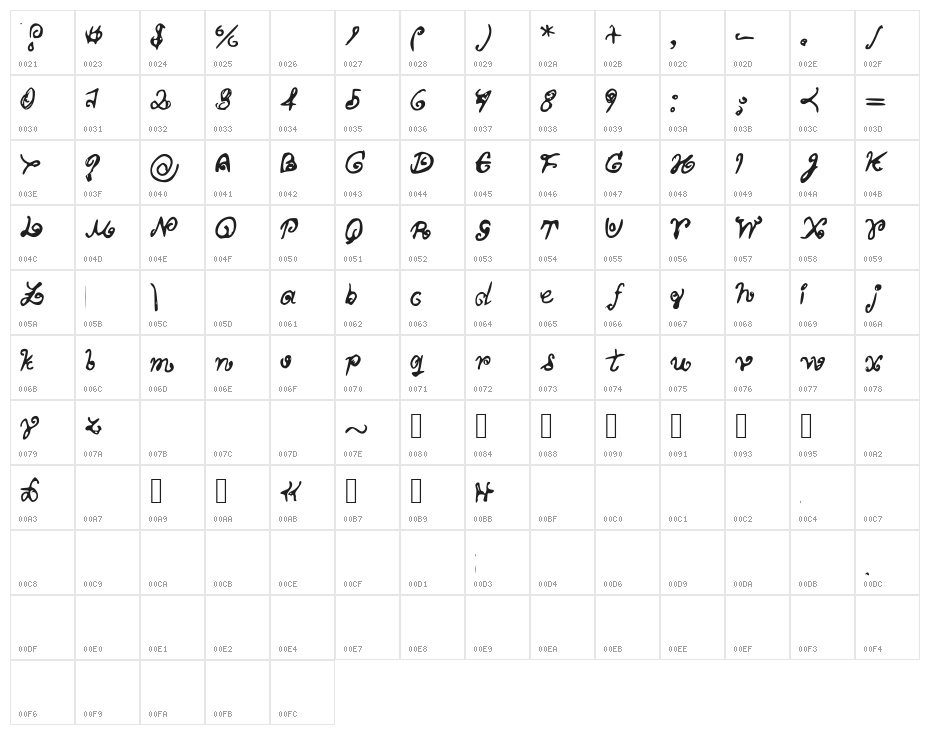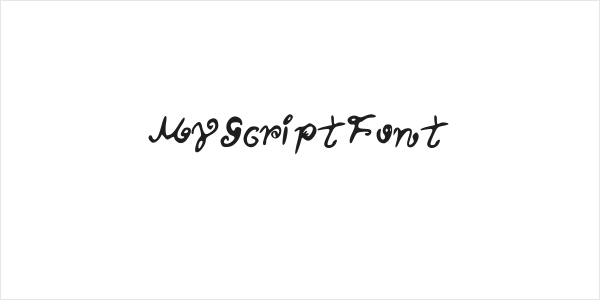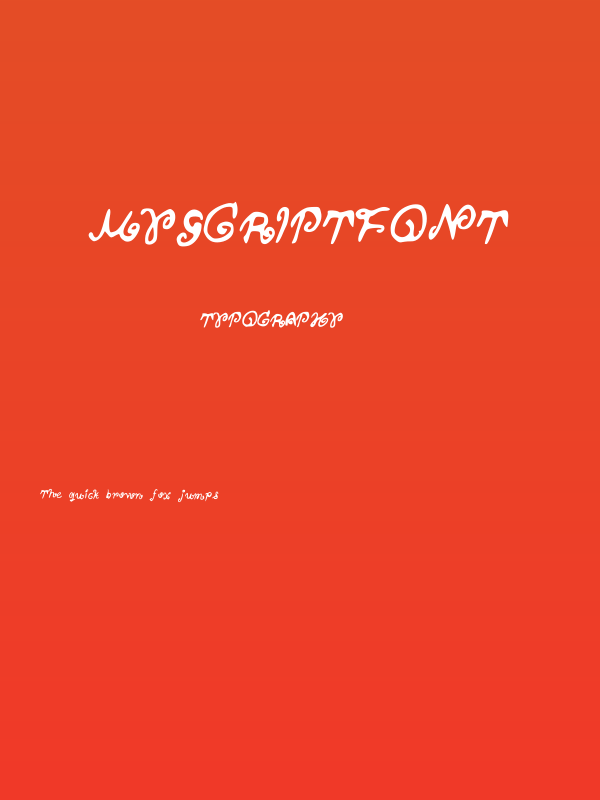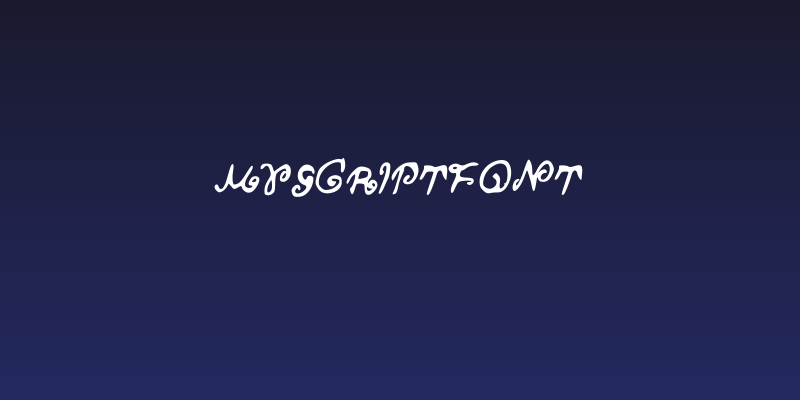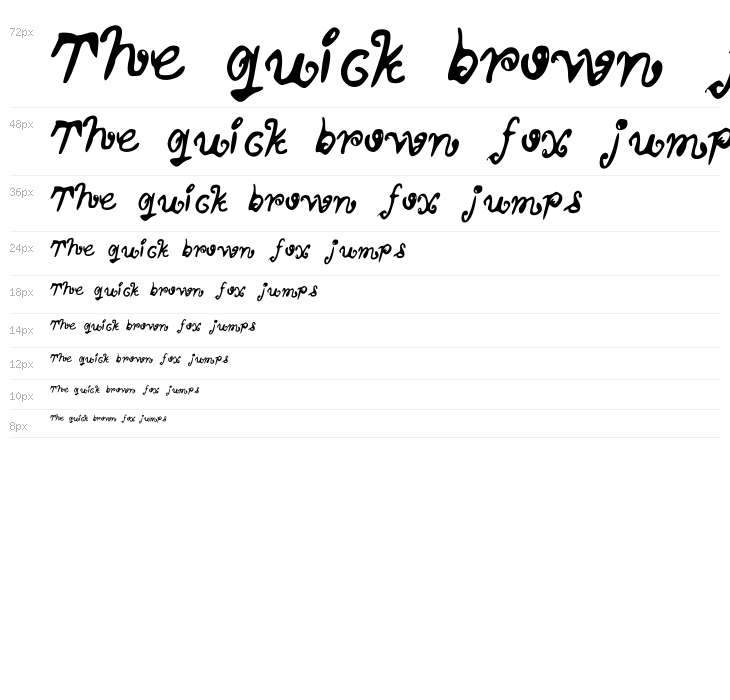
MyScriptFont Font
MyScriptFont Description
This font features a playful and whimsical script style, characterized by its flowing, cursive letters that mimic the fluidity of handwriting. The strokes are bold and expressive, with a slight slant that adds to its dynamic appearance. Each character is uniquely crafted, with loops and swirls that give it a lively and energetic feel. The font maintains a consistent thickness throughout, providing a balanced look that is both artistic and legible. Its distinctive style makes it suitable for creative projects where a personal touch is desired.
| Proposed Projects | Ideal for greeting cards, invitations, personal branding, and creative posters. |